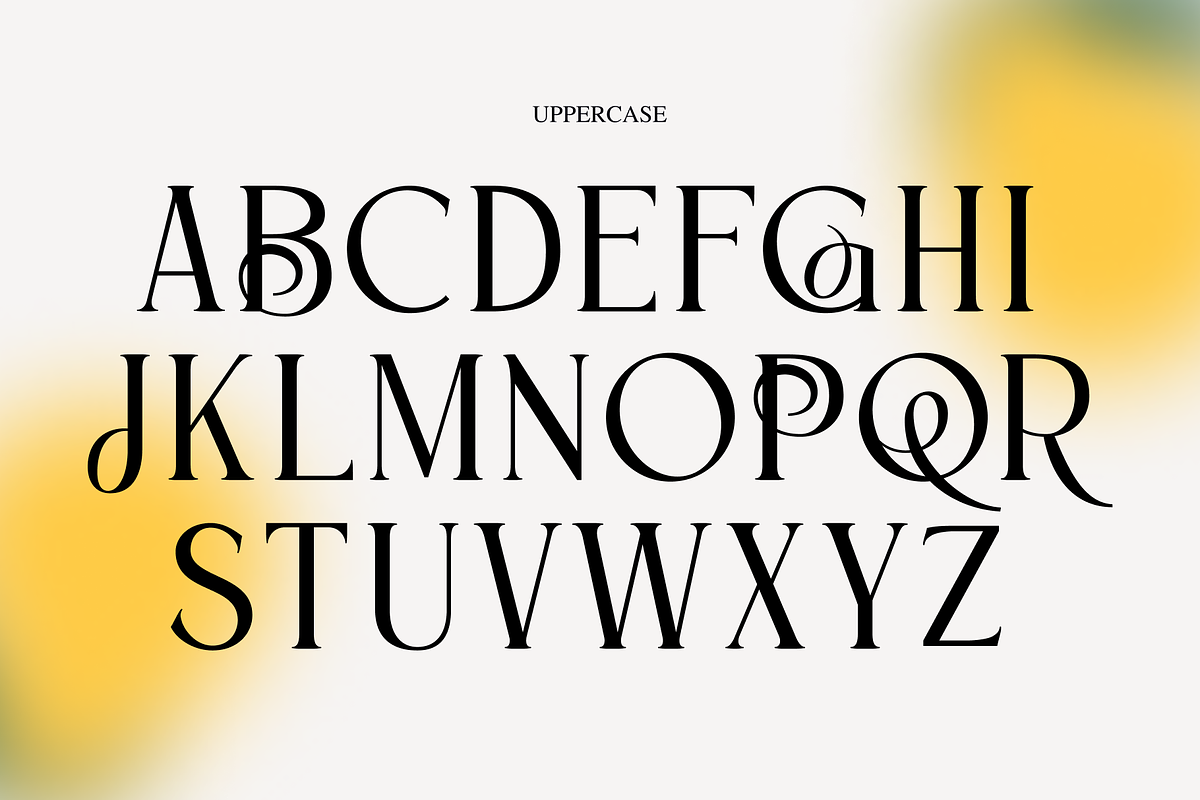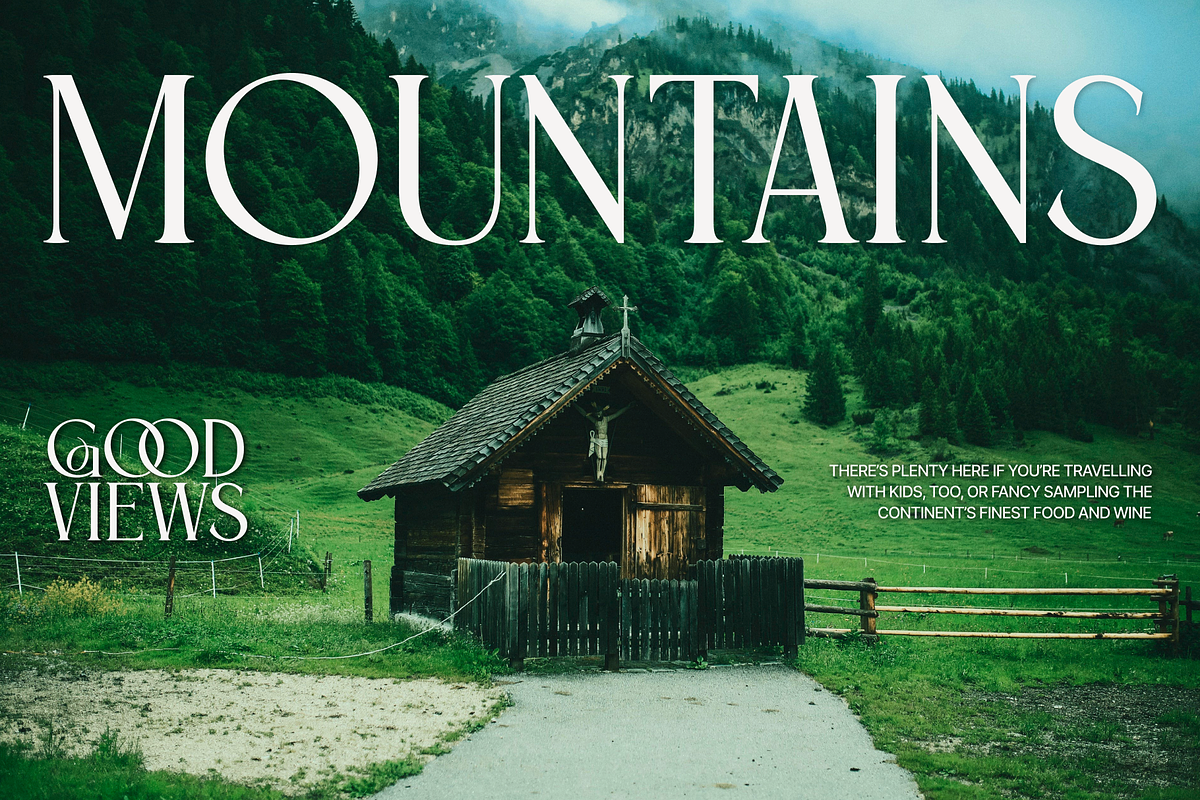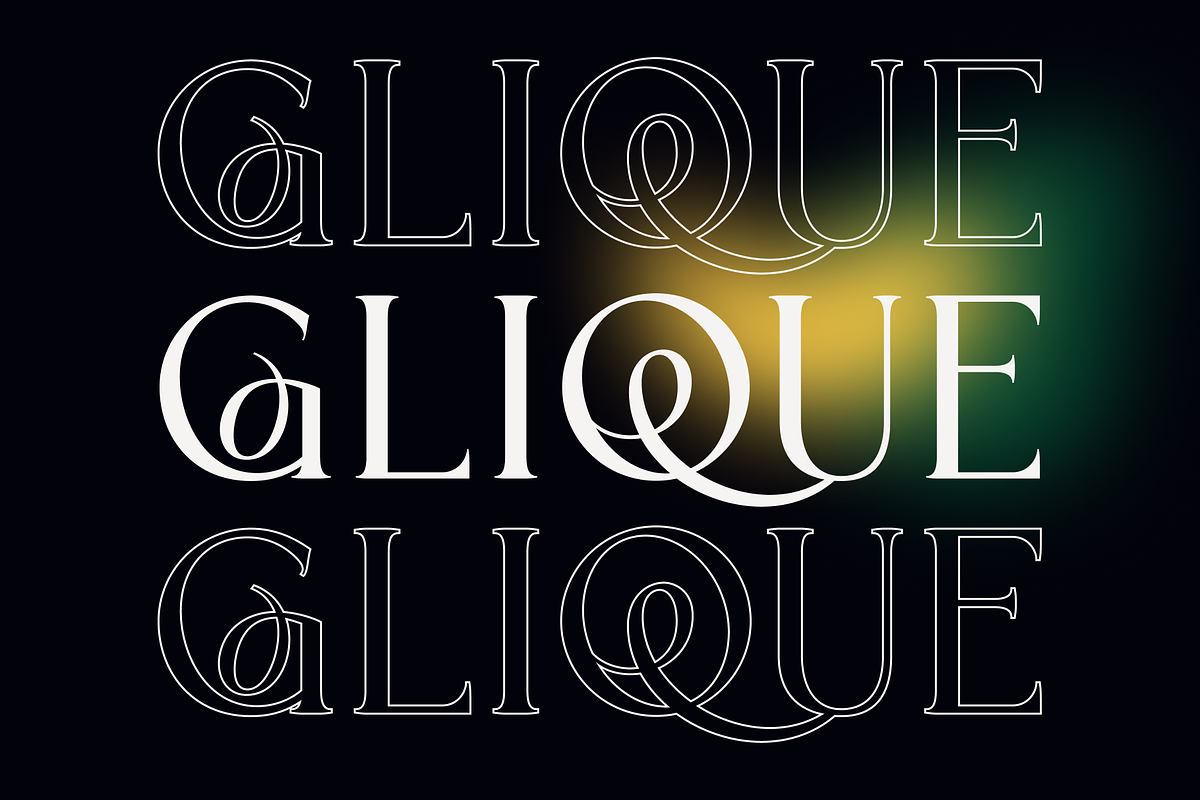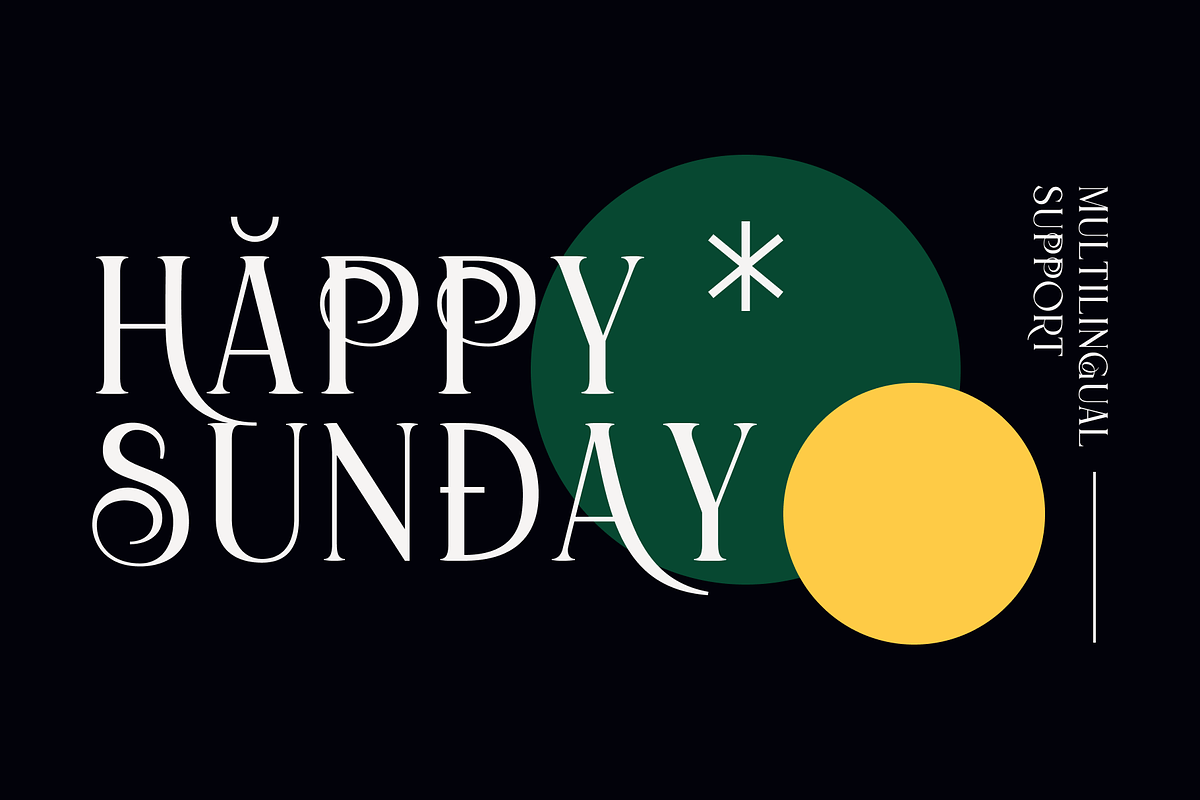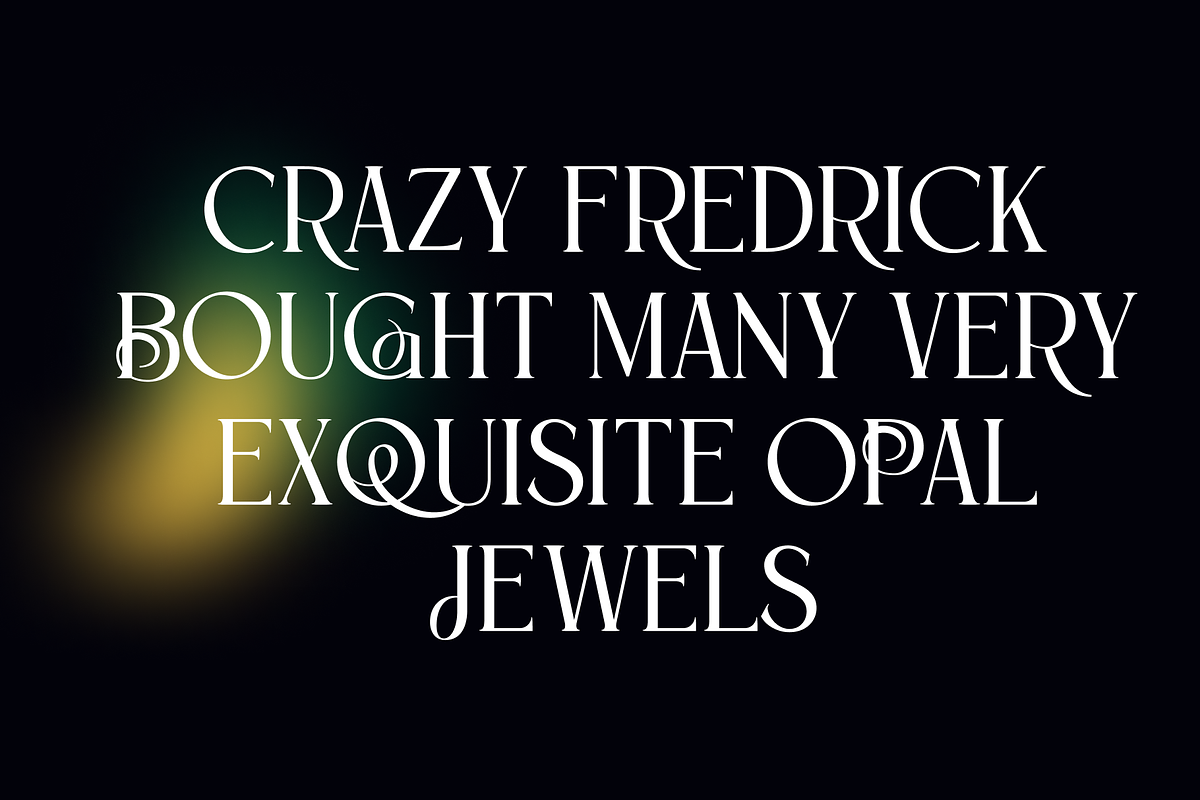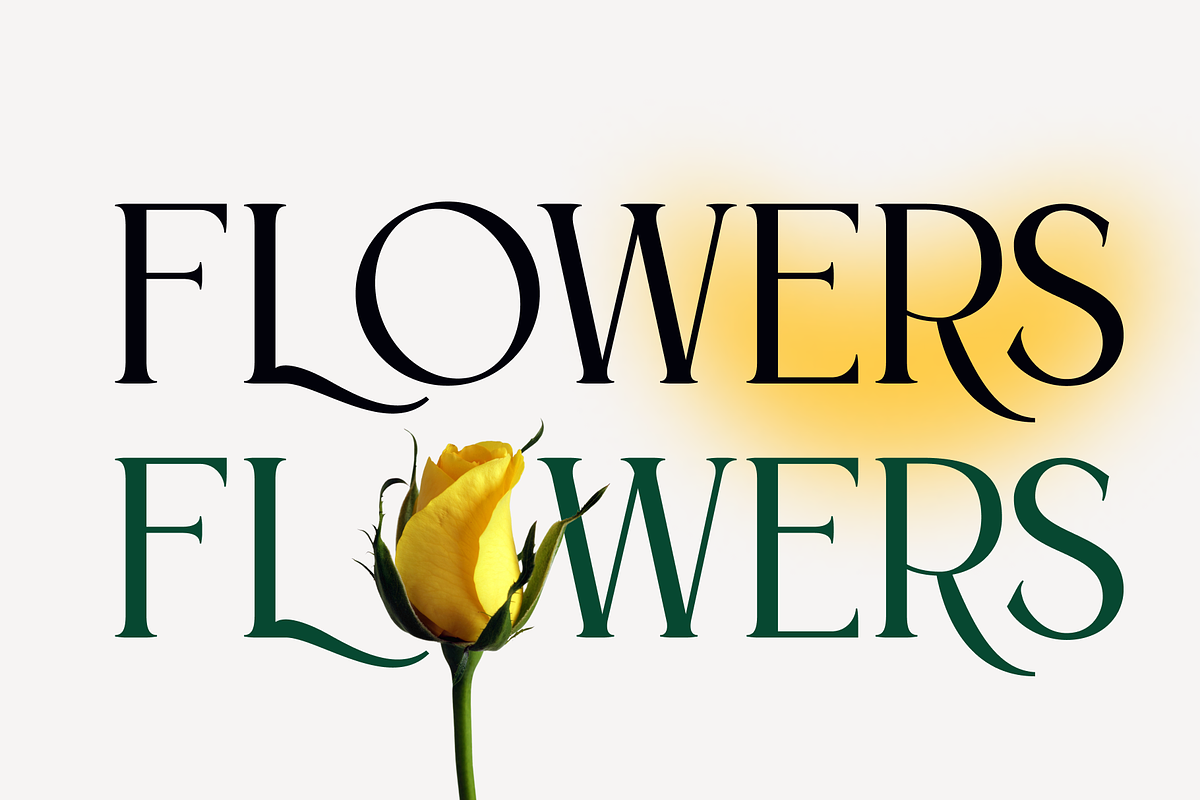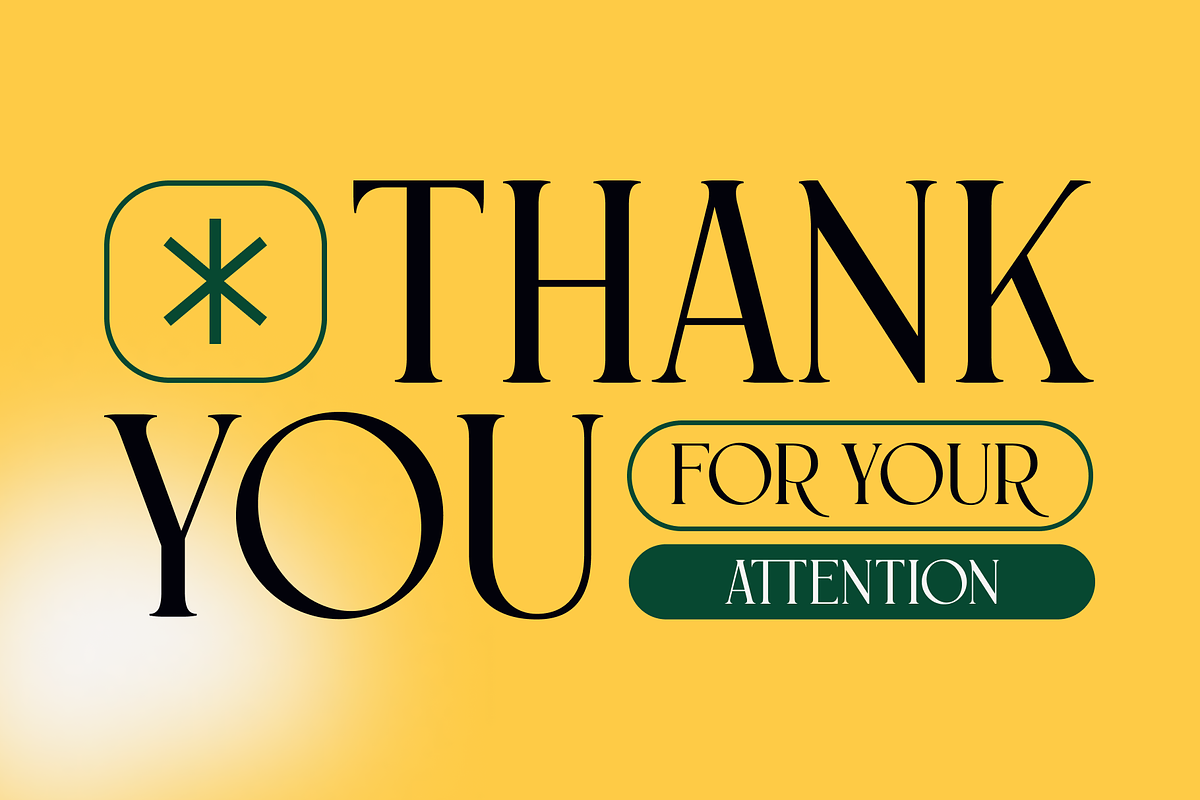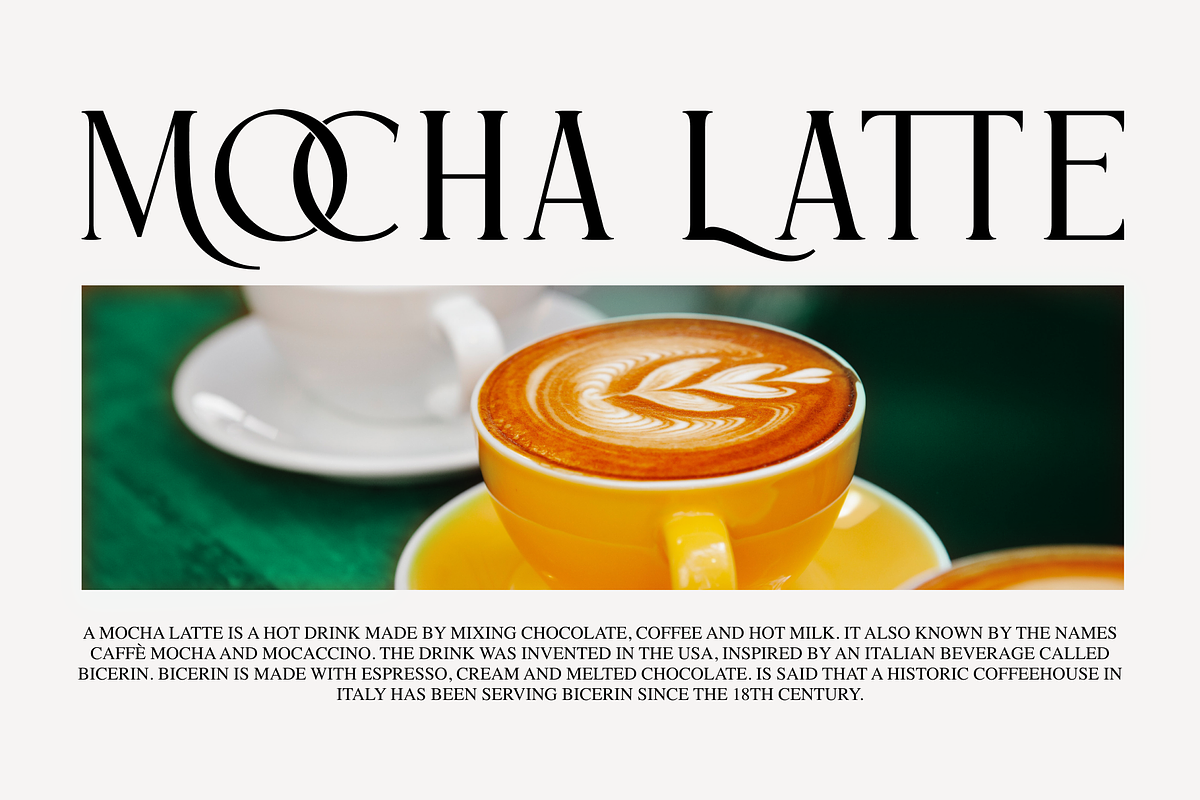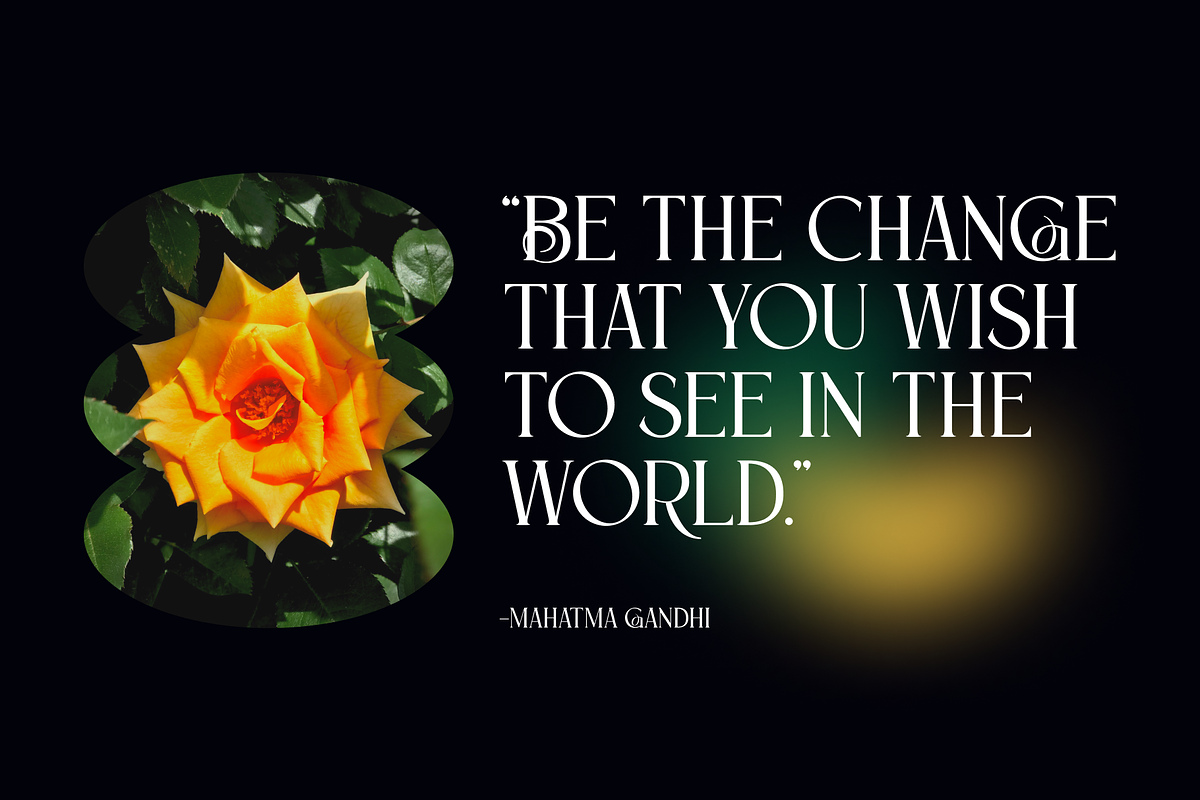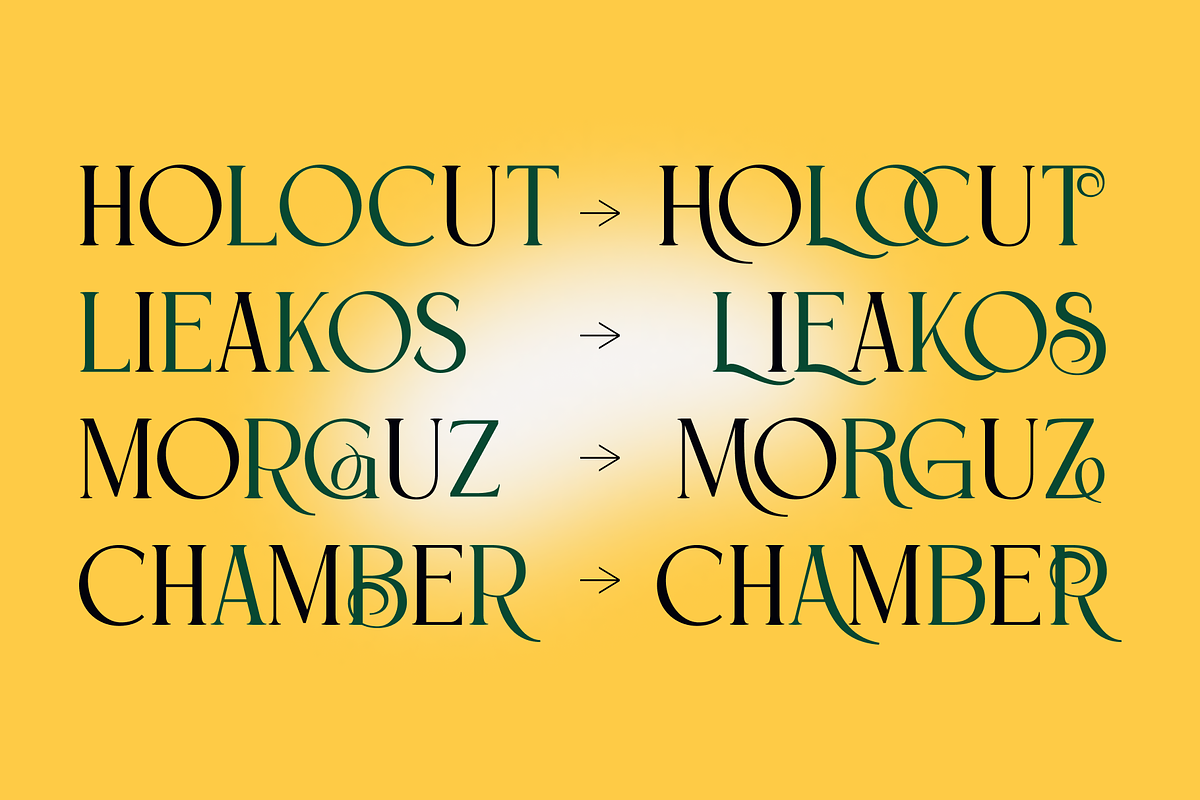
Glique Serif Display
Introducing Glique, the latest typeface that marries elegance with a contemporary aesthetic. Drawing inspiration from classic typefaces, Glique has been meticulously crafted to excel in large-scale applications. Perfectly suited to poster design, zine layouts and sticker creation, this typeface also adds a stylish twist to apparel, particularly t-shirts.